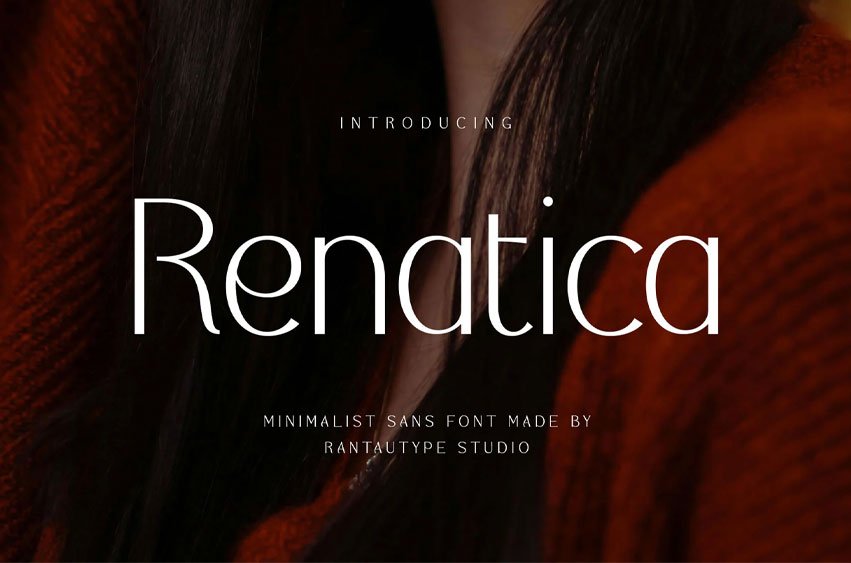
Renatica Font is an epitome of simplicity, clarity, and modern design. Renatica comes with a focus on clean lines, balanced proportions, and an uncluttered structure that makes it timeless and versatile.
Renatica is a perfect choice for any creative endeavor, chic, lifestyle design, such as logotype, advertisements, watermark on photography, stationery, branding project, display and magazine, invitation, corporate brand, product design, label, business project, and many other projects with a retro touch.